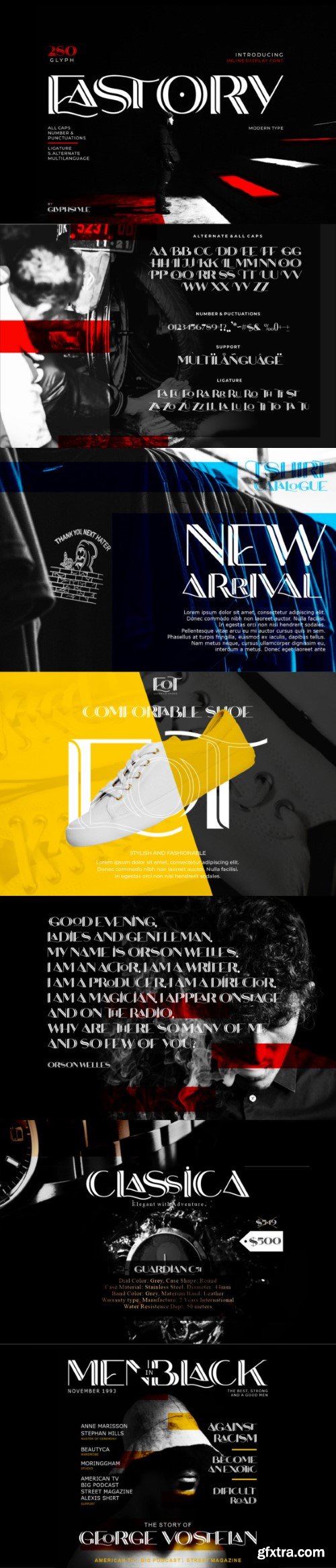
Eastory is a modern display font featuring an inline line and a combination of thick and thin letters. With a bold shape and a combination of thin and thick lines, this bold font will make your projects more elegant, modern, and stylish. Eastory is perfect for branding projects, logos, wedding designs, social media posts, advertisements, product packaging, product designs, labels, photography, watermarks, invitations, stationery, and any project that requires a decorative touch.